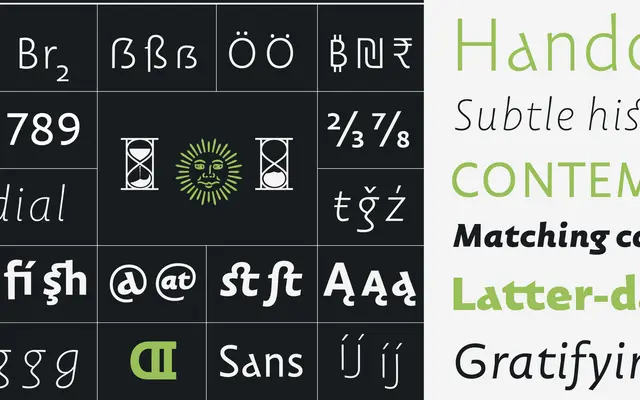
Carolinéale
A humanist sanserif by Francis Ramel, seven years in development, drawing on Carolingian minuscule and medieval musical notation for its quiet historical character.
Originating as a research project into the Carolingian minuscule script of 8th and 9th-century Frankish monasteries, the typeface evolved over seven years into a fully fledged sanserif suitable for both long-form reading and display use. Twelve styles run from Thin to Black with matching italics, and the character set is richly equipped with small caps, old-style figures, historical forms, ligatures and pinyin Latin support. Its calligraphic origins give the letterforms a relaxed rhythm that distinguishes it from more neutral grotesques.
Rooted in a research project on Carolingian minuscule script, Carolinéale is a contemporary sanserif with calligraphic warmth and historical inflection, placing it firmly in the humanist sans tradition.